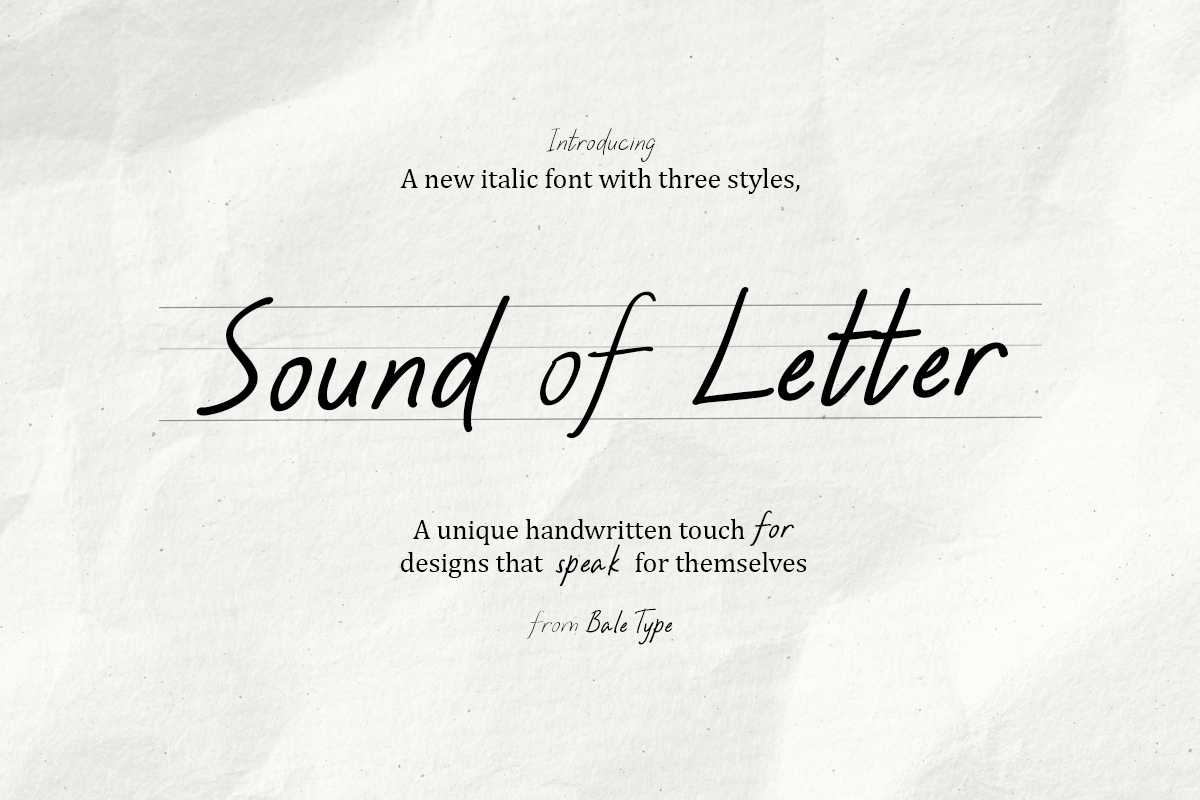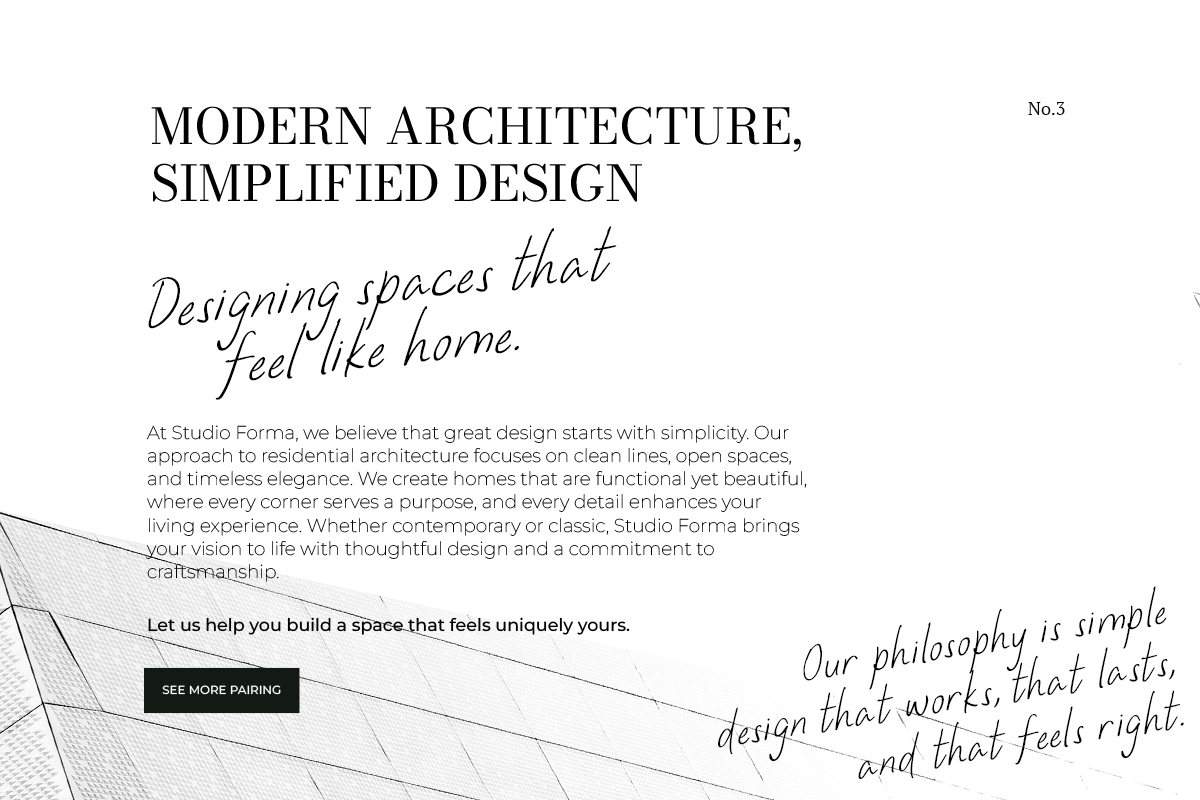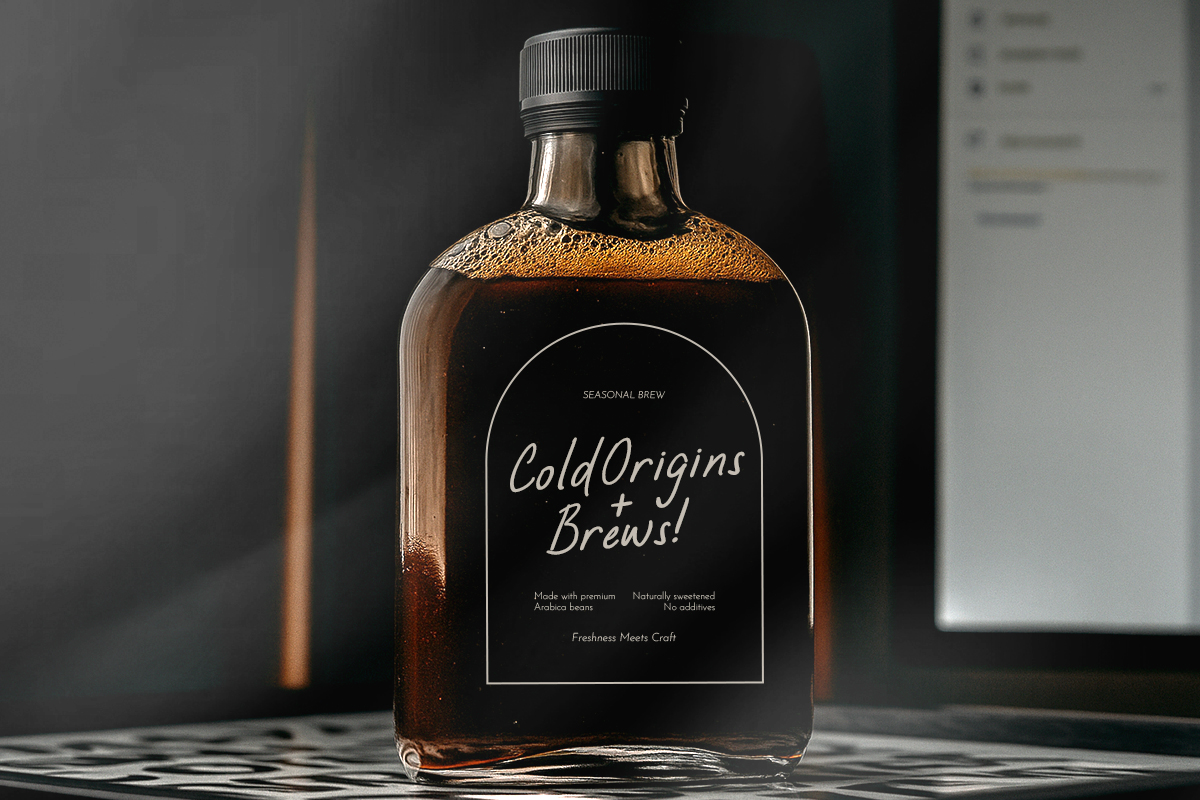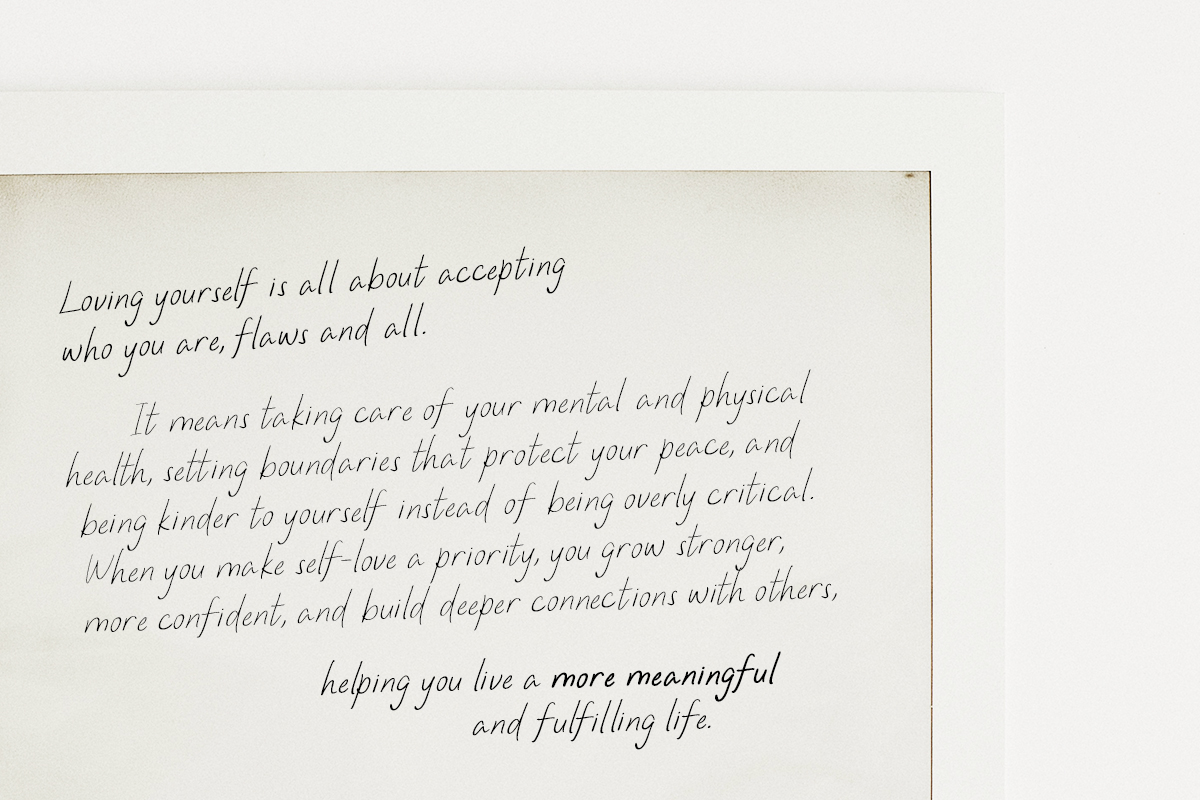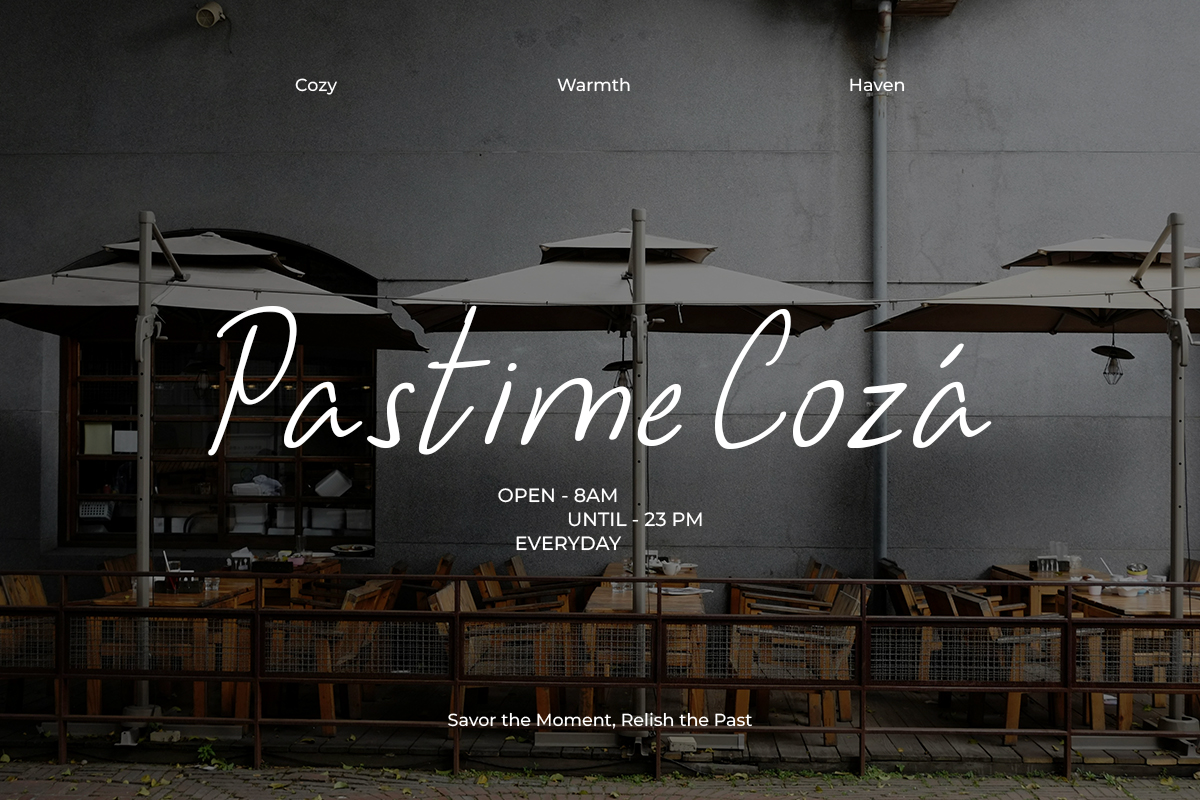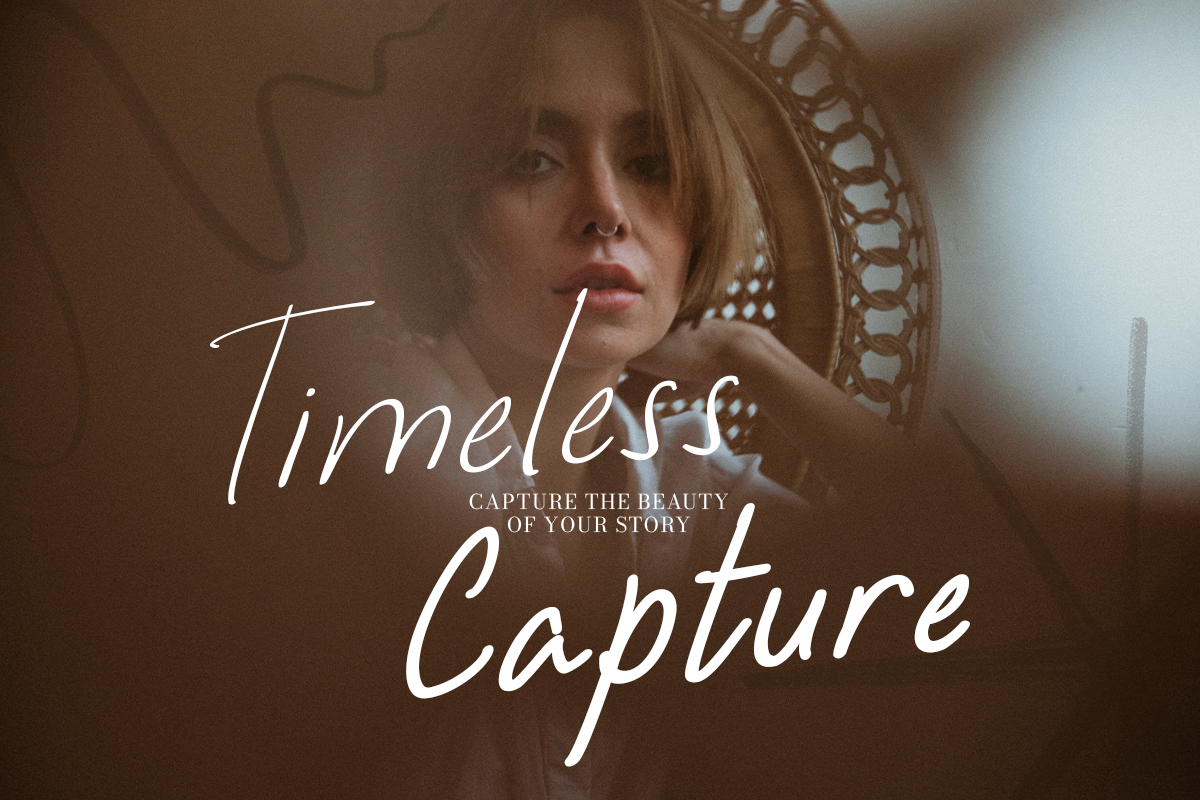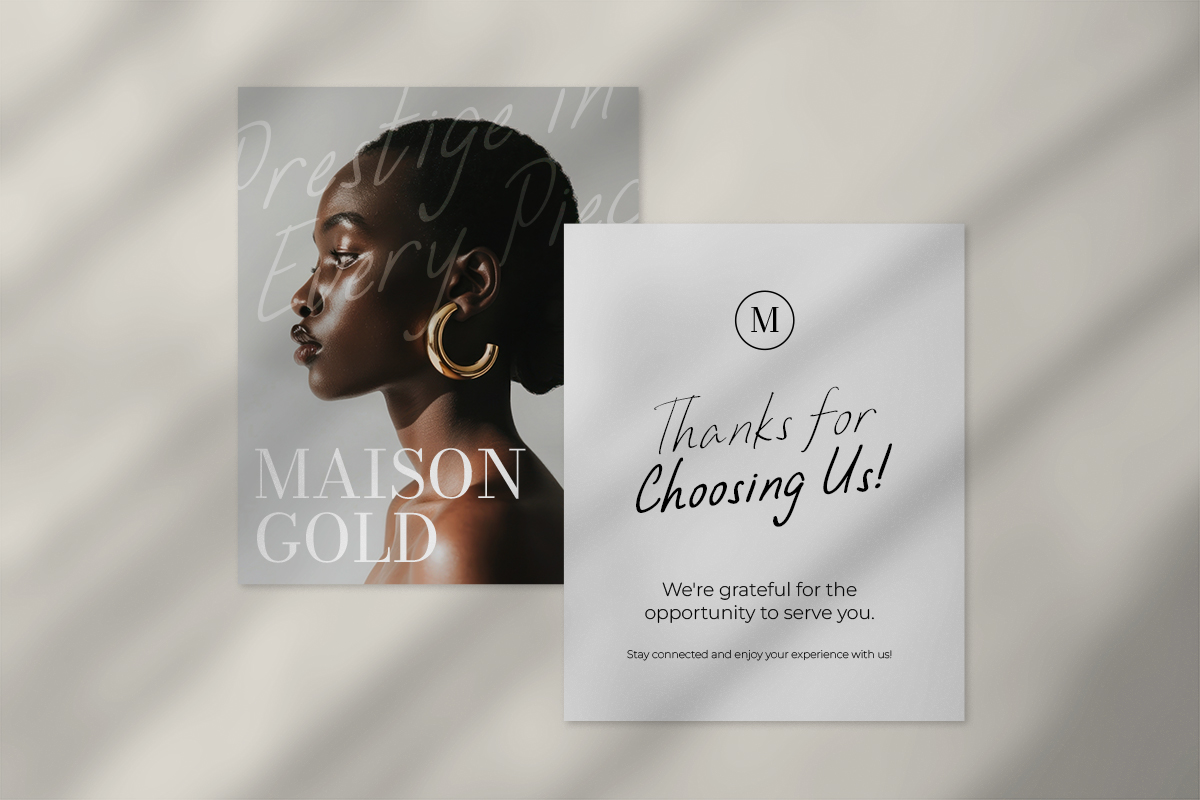
Sound of Letter - Handwritten Fonts
Sound of Letter is an italic handwritten fonts that comes with three styles, Light, Regular, and Bold. You can use this fonts for any purposes such as branding, quotes, and wedding invitations. This font is also versatile that you can use for complimentary of your other fonts. This font can make your project looks natural with handmade touch. Letter of Sound also support multi language.
Sound of Letter – Handwritten Fonts
Sound of Letter is an italic handwritten fonts that comes with three styles, Light, Regular, and Bold.